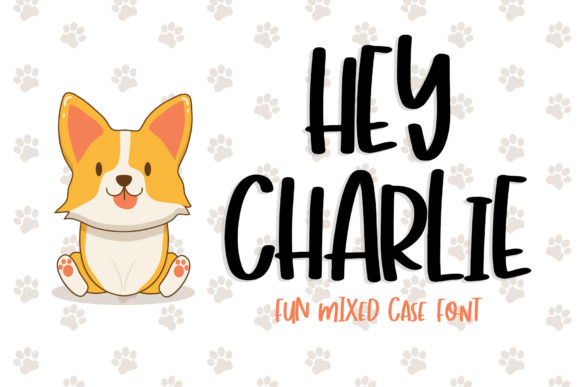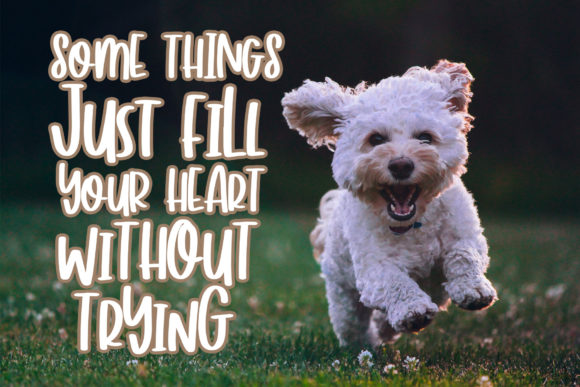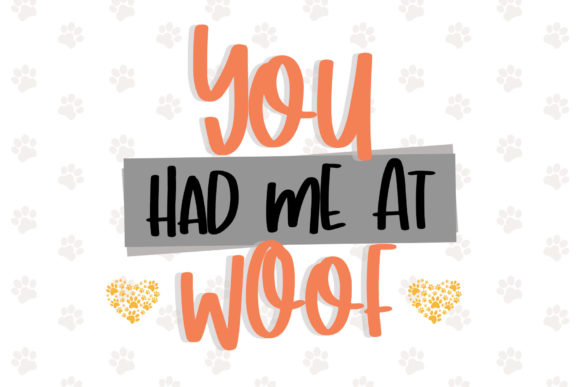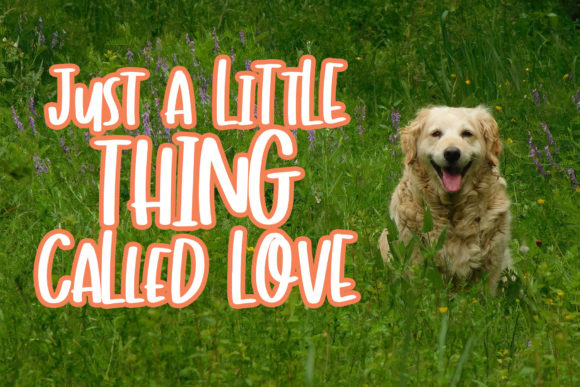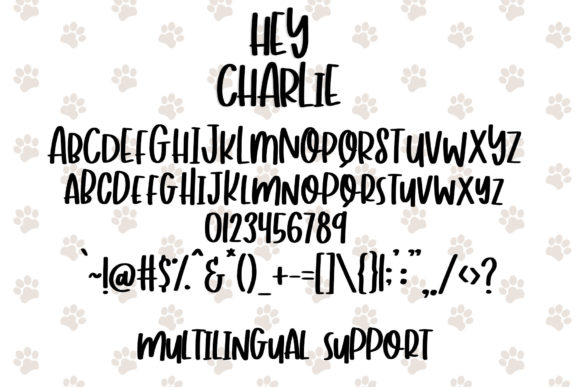
Hey Charlie Font
About Hey Charlie Font
Hey Charlie is a fun and adorable script that mixes up every letter between uppercase and lowercase in order to achieve an incredibly charming font result.